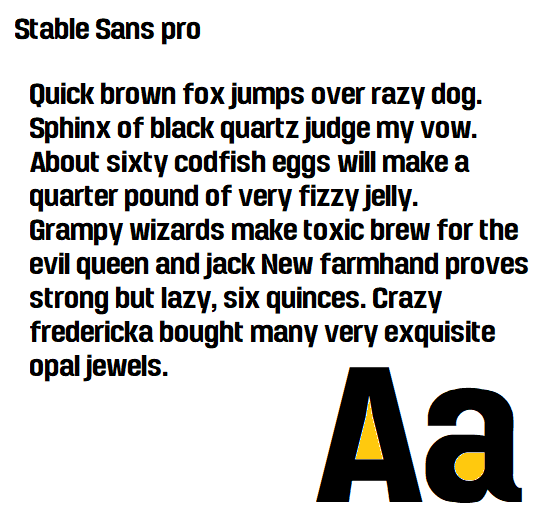
nice! very readable
10/10. Favourite sans now :)
I wonder if there will be a lighter version of this font anytime soon.
The exclamation point might need to have a larger letter width, up to you. Nice font.
Also needs some kerning. 10/10 though
Very nice font.  10/10 and fav.
Awesomeness Kerning! 10/10 thoroughly